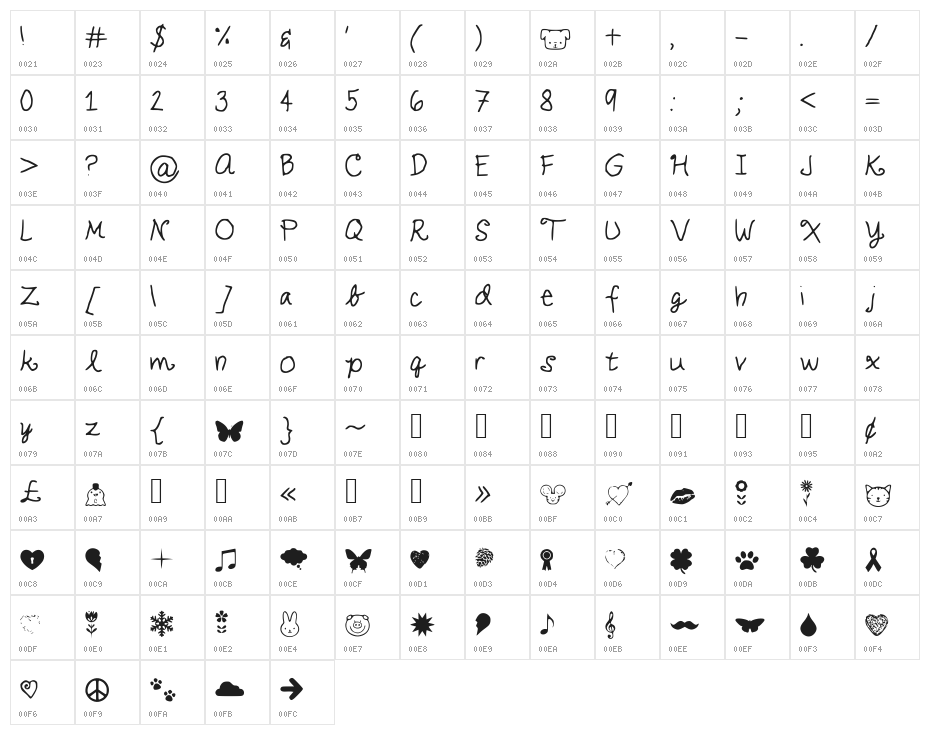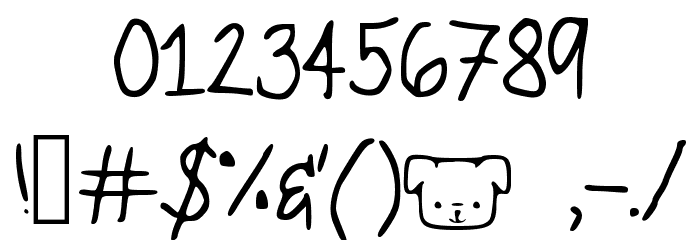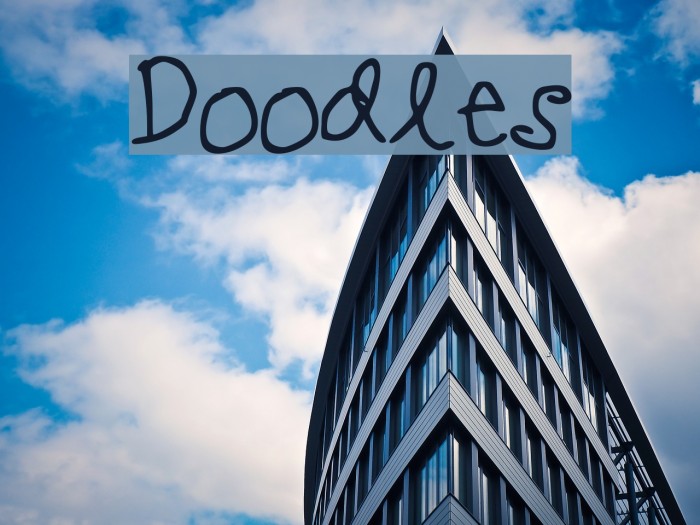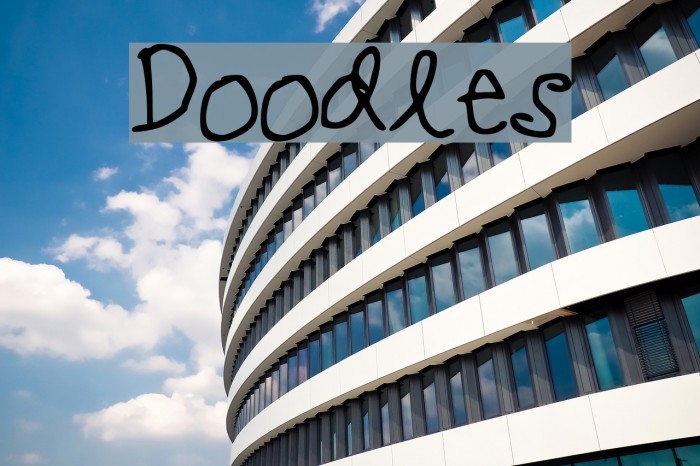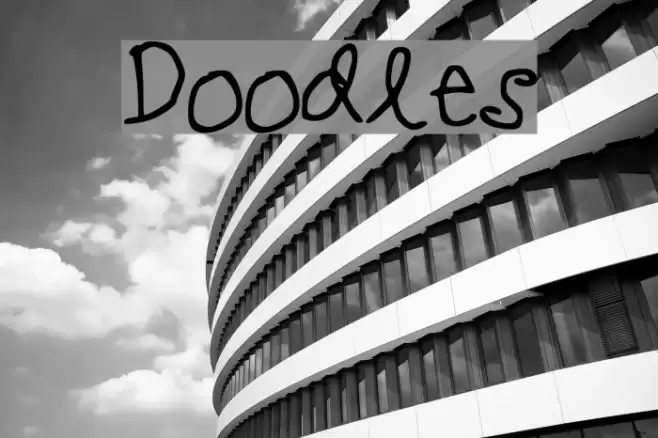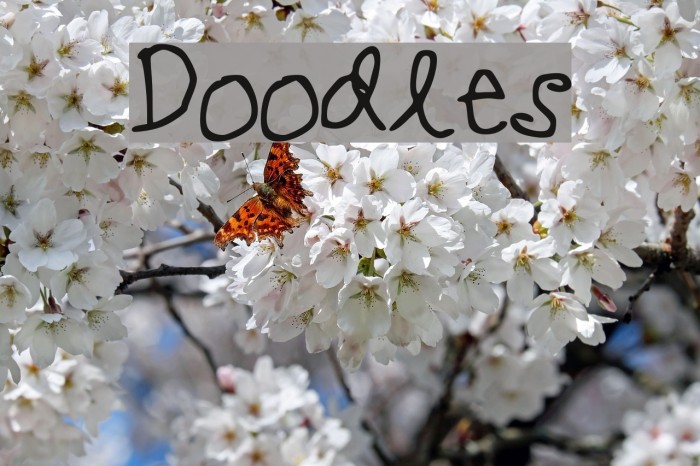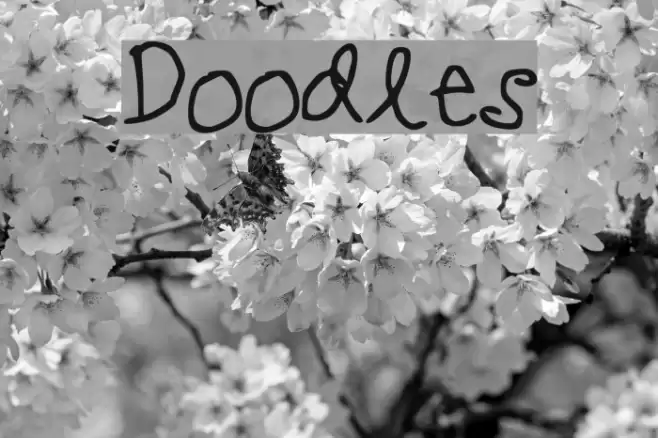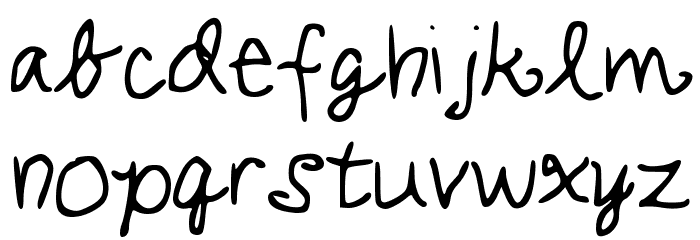
Doodles Font
Doodles Description
This playful and whimsical font features a handwritten style with a casual and friendly appearance. The letters are slightly irregular, adding a personal touch that mimics natural handwriting. The strokes are smooth and rounded, giving it a soft and approachable feel. The uppercase and lowercase letters maintain a consistent style, with some playful loops and curves that enhance its charm. Numbers and special characters are included, matching the overall playful theme. This font is perfect for projects that require a personal and informal touch, such as greeting cards, invitations, or children's books.
| Overall Style | Playful |
| Use Case | Headlines, Informal text, Creative projects |
| Proposed Projects | Ideal for greeting cards, invitations, children's books, and playful branding. |